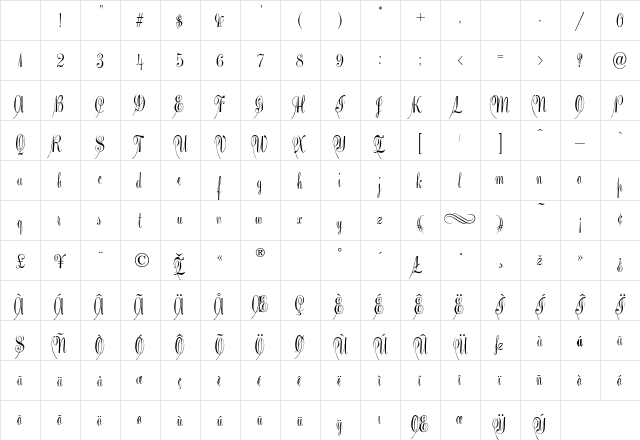
Complete PantagraphScript Regular glyph index. Displaying only characters natively supported by PantagraphScript Regular font.
PantagraphScript flows with the natural rhythm of handwritten lettering, making it ideal for designs that call for warmth and personal expression.
Font Pairing: Combine PantagraphScript with a simple geometric sans for maximum contrast - the tension between flowing curves and clean structure is a classic typographic pairing.
Pro Tip: Use PantagraphScript for short runs of text - names, titles, or taglines. Extended body copy in script faces tires the eye quickly.